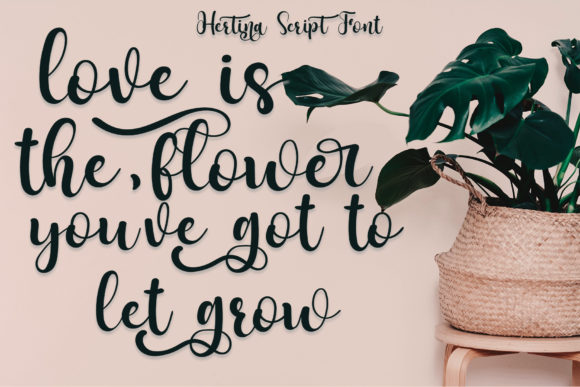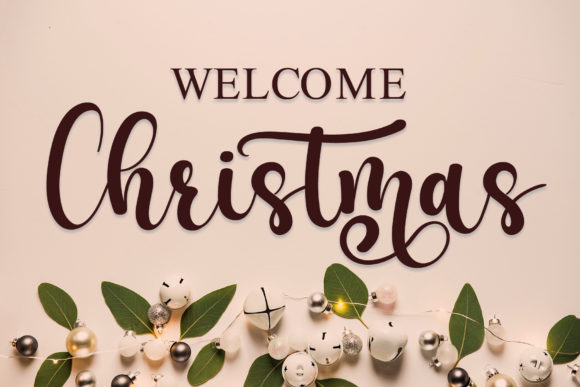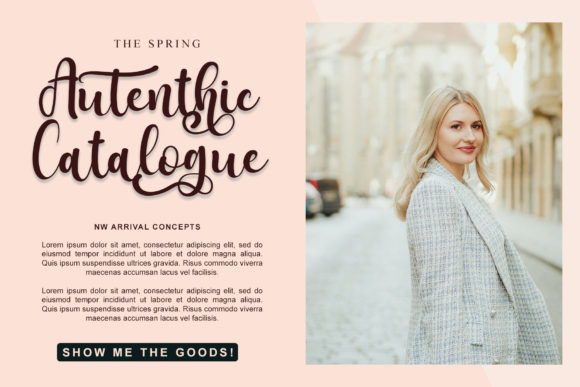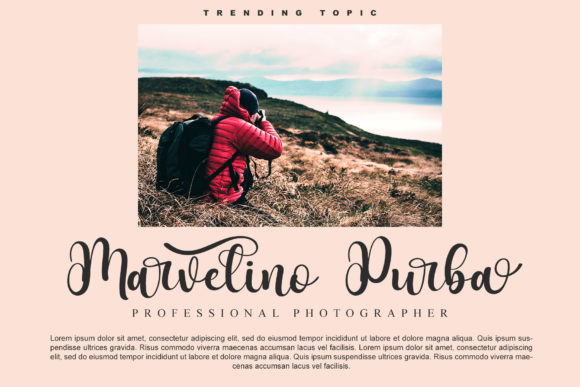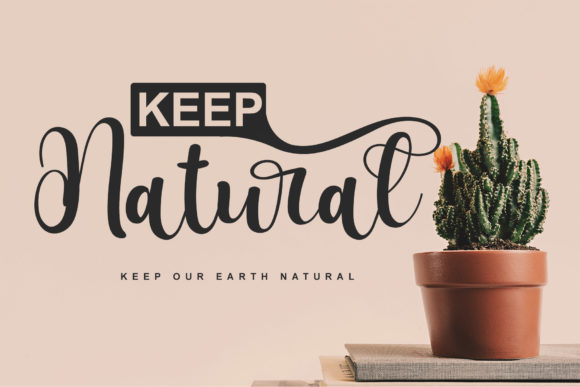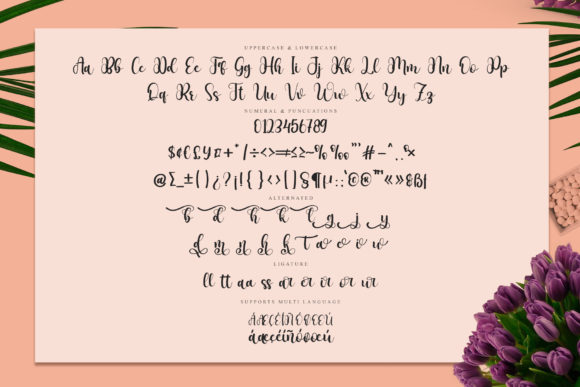
Introduction to Hertina Script Font Font
Fonts play a crucial role in design, and the Hertina Script Font font is a typeface that brings both character and versatility to any project. Whether you’re working on a branding project, a website, or a print design, the Hertina Script Font font offers a unique style that can elevate your work.
Hertina Script is a dazzling and detailed script font.
Add this romantic and lovely looking font to each of your love letters, wedding invitations or favorite design ideas, and you will be astounded by the outcome This Font is PUA encoded which means you can access all of the glyphs and swashes with ease.
Key Features of Hertina Script Font Font
Why Choose Hertina Script Font Font?
The Hertina Script Font font is more than just a typeface – it’s a design tool that helps you communicate your message with style and clarity. Its unique character set and versatile design make it suitable for a wide range of applications, from elegant invitations to bold headlines.
With its carefully crafted letterforms and balanced proportions, the Hertina Script Font font ensures readability and visual appeal across all mediums.
What makes Hertina Script Font font special?
The Hertina Script Font font stands out with its unique design, exceptional readability, and versatility across various design applications.